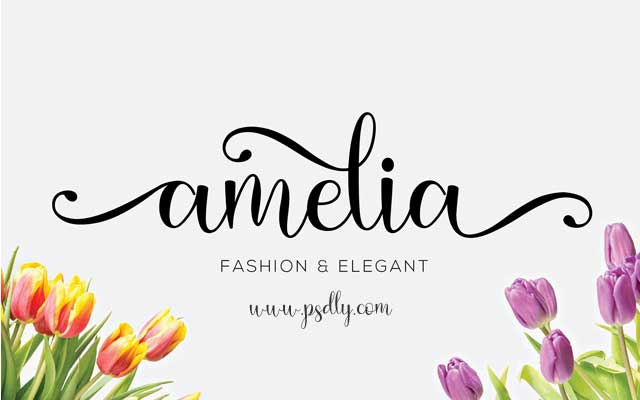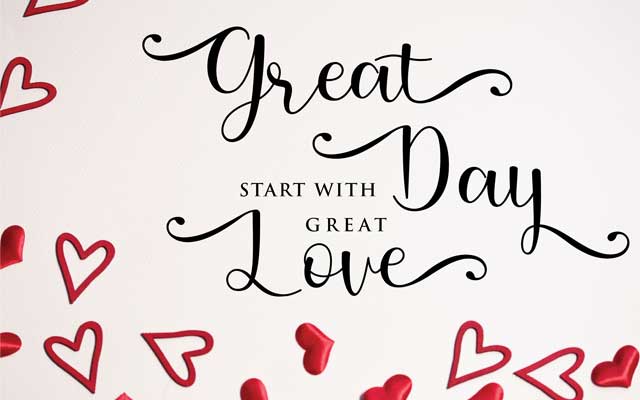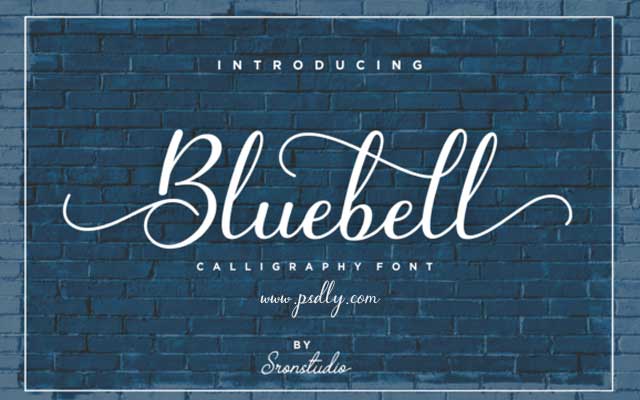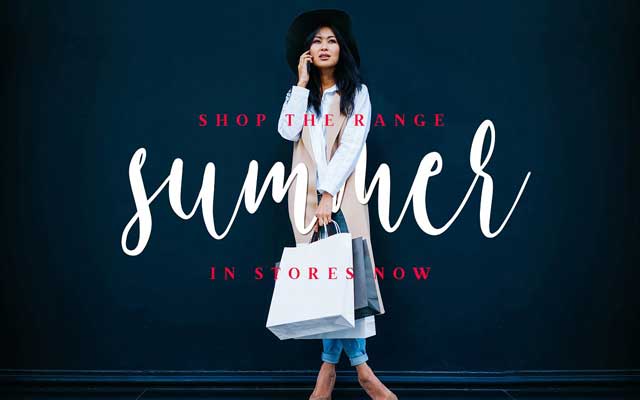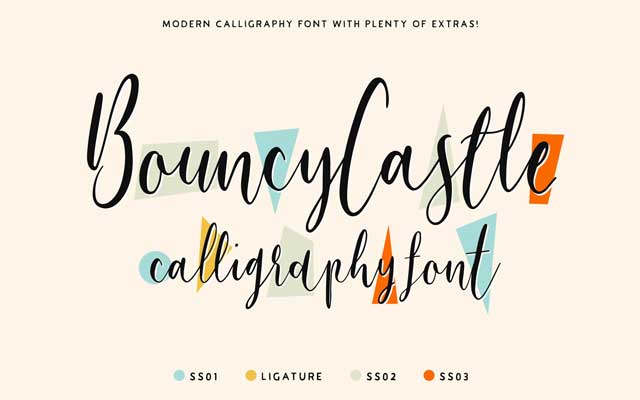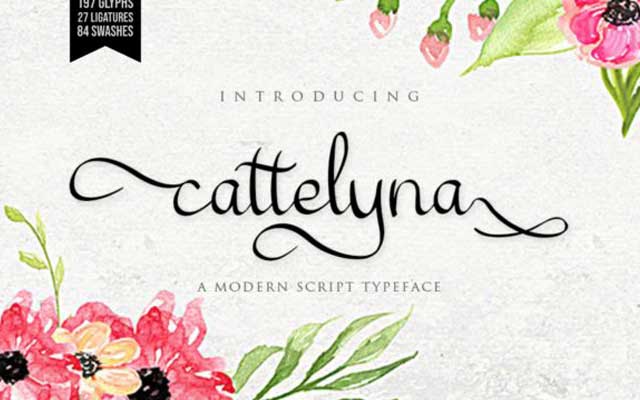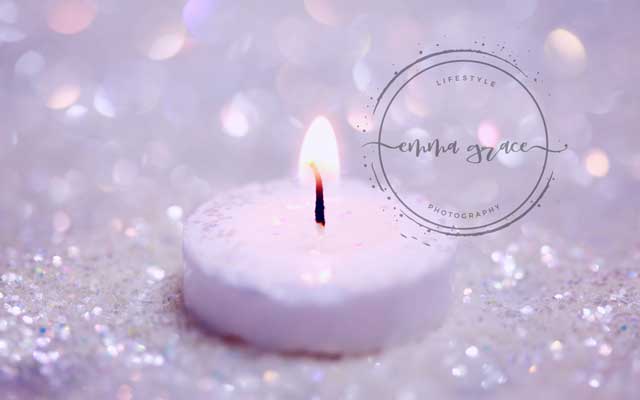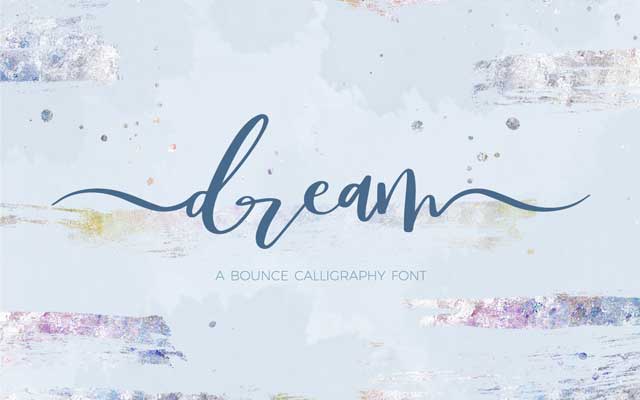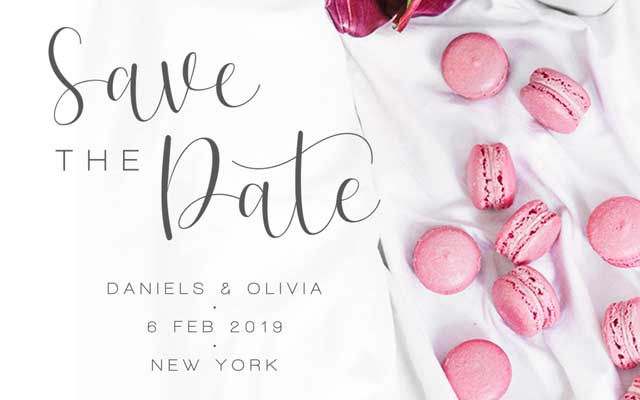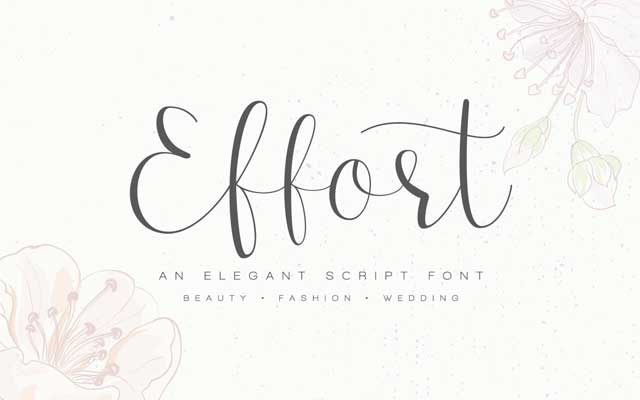
25 Best Calligraphy Font Collection Make Your Design Clean And Minimal. This Calligraphy Fonts Gives You And Modern Styles Design. Which Is Suitable For Logo Design, Business Card Design, Women’s Blog And Every Feminine Design.
• Amelia
• Bluebell
• Bouncy Castle
• Cattelyna Classy
• Dream Bounce
• Effort
• Estonia
• Ibrat
• Imagination
• little kittens brush
• Marsellina
• Mellisa
• Mollysh
• Nayla
• Oklahoma
• Penrhyme
• Serenity Olivia
• Styled up Brush
• Summary Script
• Sweet ink
• Sydnee Modern
• The Rainbow
• Wedding
• Zoxi a script
1. Amelia Font
Amelia Calligraphy Font
The amelia Script offers lovely typographic ideal for a wide range of activities, for example, logos and marking, solicitations, stationery, wedding plans, internet-based life posts, commercials, item bundling, item structures, names, photography, watermarks, uncommon occasions or anything that requirements penmanship taste.
2. Bluebell Font
Bluebell Calligraphy Font
Bluebell is another, cutting edge and new calligraphy text style. Bluebell looks common, exquisite and is ideal for any great venture, for example, logos and marking, solicitations, stationery, wedding plans, internet-based life posts, promotions, item bundling, item structures, names, photography, watermarks, exceptional occasions and significantly more!
3. Bouncy Castle Font
Bouncy Castle Calligraphy Font
4. Cattelyna Classy Font
Cattelyna Classy Calligraphy Font
The cattelyna is a modern beautiful typeface. It’s perfect for feminine, elegant, and luxurious designs. It has a fresh and modern look which can be used for greeting cards, branding materials, quotes, posters, and much more.
5. Dream Bounce Font
Deam Bounce Calligraphy Font
All I at any point needed to do was anything I desired. A dream is a skip calligraphy text style, highlighting two diverse swash choices, with both left and right swashes, and a couple of ligatures. It has an up and down pattern, making it outwardly intriguing, and ideal for current marking, solicitations, or statement illustrations
6. Effort Font
Effort Calligraphy Font
The effort is a cutting edge calligraphy textual style with written by hand, current, modern streams. It is ideal for marking, wedding welcomes and cards. For those of you who are requiring a bit of class and advancement for your plans, this textual style was made for you
7. Estonia Font
Estonia Calligraphy Font
Estonia is a cutting edge calligraphy textual style that will add light and cool feel to any plan venture!
8. Ibrat Font
Ibrat Calligraphy Font
Ibrat Calligraphy is ideal for adding an individual touch to the majority of your structure ventures. Incredible for cards, solicitations, shirts, logos, cites, clothing, promoting, picture overlays, welcoming cards, web flags, and marking
9. Imagination Font
Imagination Calligraphy Font
Imagination font is great for creating your wedding stationery, branding, websites, logos, packaging, and any other papers and projects.
10. Little Kittens Brush Font
Little Kittens Brush Calligraphy Font
Give your plans a true brush handmade feel. “Little Kittens” is superbly fit to stationery, logo, typography statements, magazine or book spread, site header, apparel, marking, bundling structure and that’s just the beginning. Included Stylistic Alternates and Ligatures.
11. Marsellina Font
Marsellina Calligraphy Font
Marsellina text styles of Marsellina upscale calligraphy that have a fluctuated standard, scarcely discernible differences, exemplary and exquisite contacts. Can be utilized for different purposes. For example, title, signature, logo, wedding greeting, shirt, letterhead, nameplate, name, news, publication, identification and so on.
12. Mellisa Font
Mellisa Calligraphy Font
Mellisa is a cutting edge calligraphic text style structured with the polish of each letter. As in the review you see, this textual style is truly reasonable to use on some item brand with normal penmanship show.
13. Mollysh Font
Mollysh Calligraphy Font
Give your plans a bona fide carefully assembled feel. “Mollysh” is superbly fit the signature, stationery, logo, typography statements, magazine or book spread, site header, attire, marking, bundling plan and that’s only the tip of the iceberg.
14. Nayla Font
Nayla Calligraphy Font
NAYLA Modern Calligraphy. This textual style was planned by penmanship, and it has an advanced and one of a kind types of calligraphy, the composition style is characteristic.
15. Oklahoma Font
Oklahoma Calligraphy Font
New Oklahoma is a textual style content, reasonable for marking, blurbs, watermarks, business cards, garments, magazines, web, and other structure ventures, excellent and one of a kind text style contents, it is a model of current calligraphy typography, in blend with the style of old style calligraphy composing present day. This textual style has highlights like the past textual style which is anything but difficult to access swash and substitute, this text style just has 309 glyphs, consolidating letters and numbers you can access swash and interchange.
16. Penrhyme Font
Penrhyme Calligraphy Font
It’s a lot of calligraphy style text styles, incorporate 6 textual styles, they are Penrhyme Dance, Penrhyme Elegant, Penrhyme Fast, Penrhyme Flexible, Penrhyme Mad, Penrhyme Sway. can be utilized for Logo, books, commercials, flyer, web and so on
17. Serenity Olivia Font
Serenity Olivia Calligraphy font
Presenting Serenity and Olivia! A wonderful streaming content textual style – painstakingly made utilizing a pointed pen and ink. Each letter is one of a kind and ideal for anybody searching for a cutting edge calligraphy textual style. I have spent numerous hours structuring and building up this text style with gobs of additional highlights so you can have the impact of a cutting edge calligraphy content as though it was composed by you. Ideal for item bundling, marking, logo configuration, blog entries, wedding greeting suites or for no reason in particular!
18. Styled Up Brush Font
Styled Up Brush Calligraphy Font
It’s a great opportunity to get Styled up! I’m completely dependent on brushing pens ( the size of my pen gathering is a bit of humiliating :D), and I simply love the polish and surface you can make utilizing them. Thus, obviously, a text style must be made to commend this energy 🙂
19. Summary Script Font
Summary Script Calligraphy Font
Summery is a lovely written by hand textual style with a remarkable fun character. It looks flawless on wedding solicitations, publications, divider prints, welcoming cards, and organizers. Other than that, you can utilize it on internet-based life and for your own marking
20. Sweet ink Font
Sweet ink Calligraphy Font
Styles and Elegant Sweet Ink textual style can be utilized at numerous territories, for example, Food (particularly Sweets and Coffee), Package, Fashion, Beauty and so on.
21. Sydnee Modern Font
Sydnee Modern Calligraphy Font
Sydnee Script Fonts made with affection, this textual style is generally excellent for weddings, birthday events, corrective items, design, and different structures you need. Sydnee Script Fonts has more than 600 + of the glyph and has 17 complex sets that settle on you wide decision your structure.
22. The Rainbow Font
The Rainbow Calligraphy Font
The Rainbow – current calligraphy textual style is a written by hand content textual style with a reasonable and loosened up style, this text style is incredible for your next innovative activities, for example, logos, printed cites, solicitations, cards, item bundling, headers, logotypes, letterheads, blurbs, dress plans, names, and so forth.
23. Wedding Font (Delight)
Wedding Font Delight
You can see wonderful occasions and wedding handwriting calligraphy textual style Delight. Interesting handcrafted calligraphic textual style Delight is best for some occasion objectives: calligraphy greeting on wedding, commemoration, birthday and other.
24. Zoxi a script Font
Zoxi a script Font
Presenting Zoxi, an exquisite, full-highlighted content textual style with unpretentious plunge pen calligraphy surface and huge amounts of OpenType highlights. Hand-lettered with sensitive dainty strokes and progressively considerable thick strokes, Zoxi is especially appropriate to solicitations, marking, and publication structure.
25. Stephen Type Font (Signature)
Stephen Type Font
Stephen Type is sensible penmanship and marks textual style. If you don’t mind see the majority of the extra pictures to perceive what it looks like and view the glyphs (incorporates some Latin glyphs. It very well may be utilized for a wide scope of activities, for example, logo plans, online marks, email marks, party and wedding solicitations, shirt structures, signs, magazine structure, welcome cards, notice plan and significantly more!
26. Wide Ride Font (BONUS)
Wide Ride Font